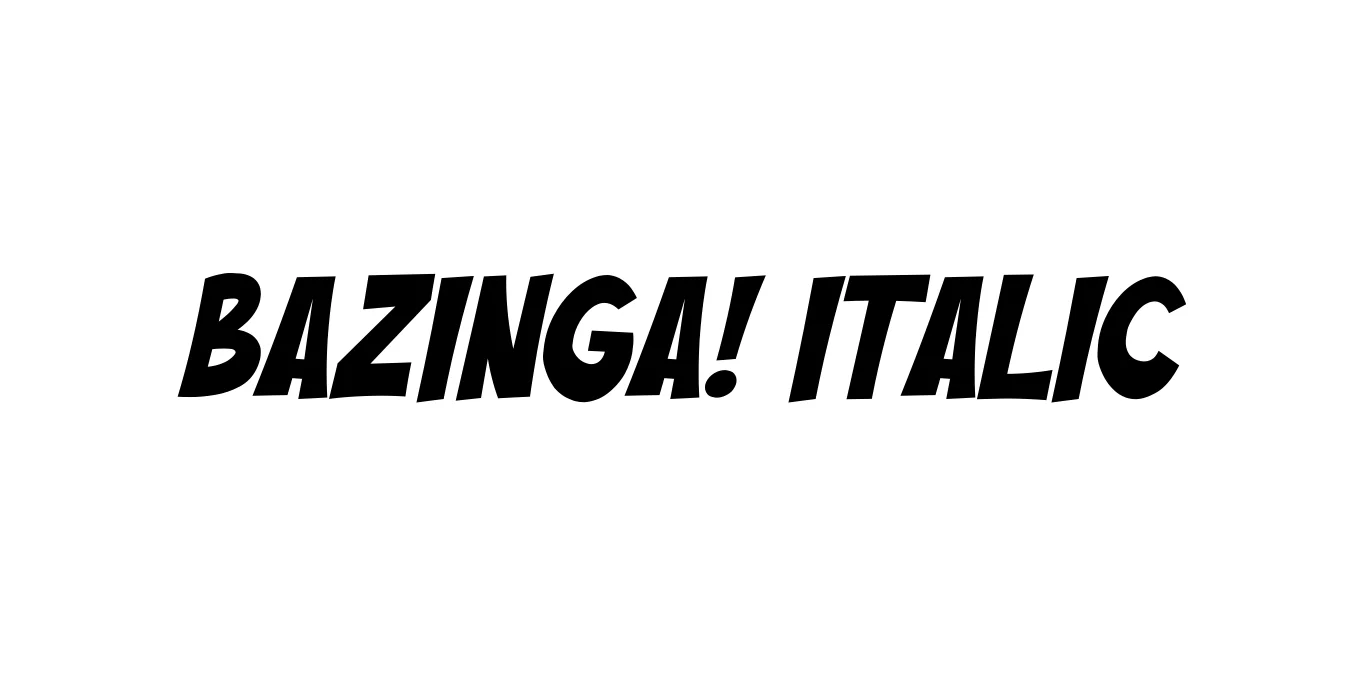
Bazinga! Italic
Designed by Måns Grebäck
| Category | Display / Comic |
| Designer | Måns Grebäck |
Bazinga! Italic is a dynamic and energetic display font inspired by the vibrant world of pop culture and comic book aesthetics. Designed by the renowned typographer Måns Grebäck, this typeface captures a sense of enthusiasm and wit, famously mirroring the high-energy catchphrases found in iconic television sitcoms. Its slanted orientation adds a layer of speed and motion to the characters, making it an excellent choice for visual compositions that require a playful yet bold presence.
Technically, the font features thick strokes and slightly rounded terminals that provide great legibility in display settings. It is crafted to evoke the classic hand-lettered style found in vintage comics while maintaining a modern, polished execution. This balance makes Bazinga! Italic a versatile tool for designers looking to inject personality and a lighthearted spirit into their creative projects, ranging from digital graphics to physical merchandise and apparel designs.
Bazinga! Italic Best Uses
Perfect for speech bubbles, action sequences, and character titles.
Ideal for t-shirts, hoodies, and fan-related products.
Captures attention in memes, YouTube thumbnails, and Instagram stories.
Great for event advertisements and playful, high-impact headlines.